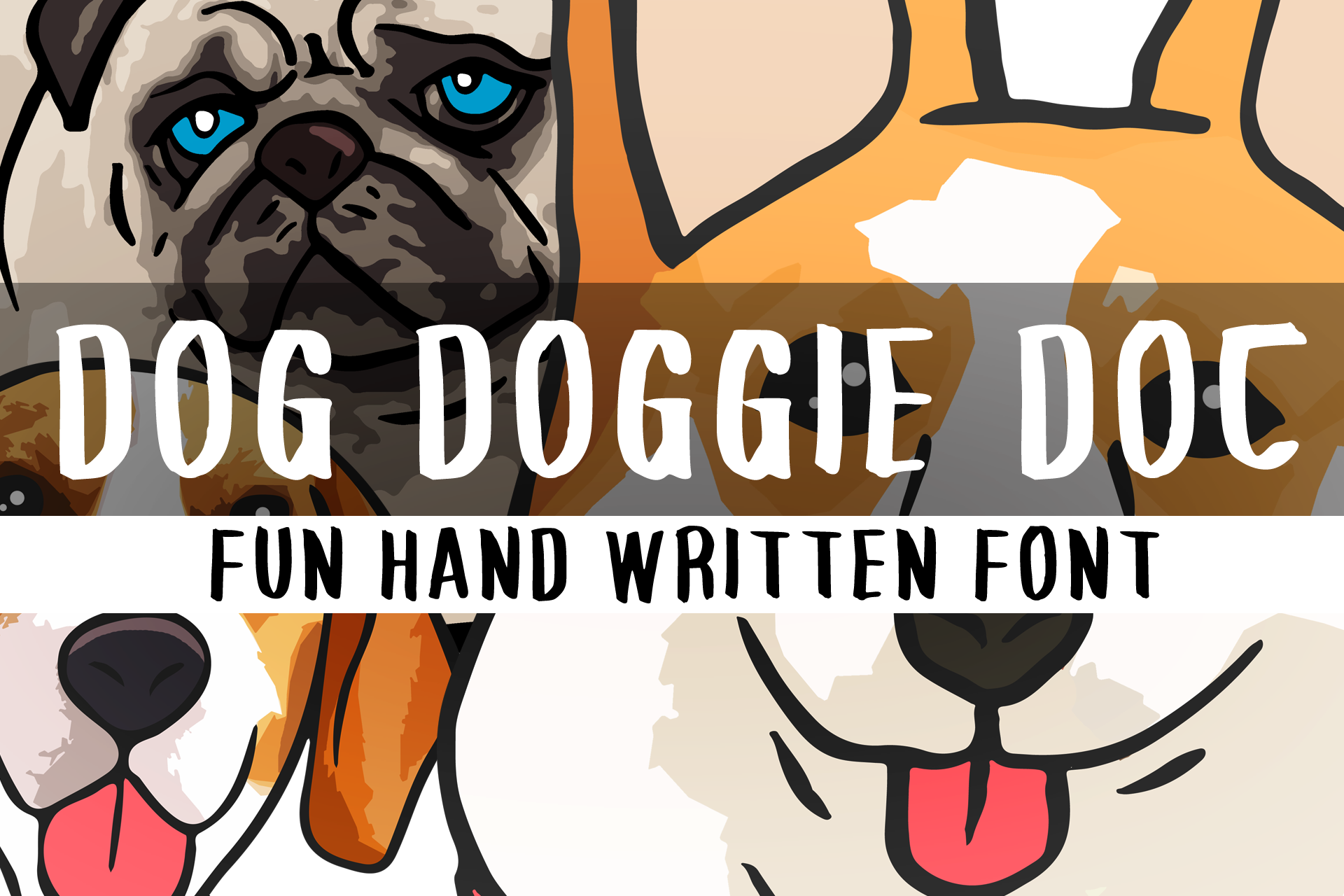
Dog Doggie Doc Font
Dog Doggie Doc is a fun handwritten font that conveys impeccable friendliness. Whether you’re using it for crafts, digital design, presentations, or making greeting cards, this font has the potential to become your favorite go-to font, no matter the occasion!